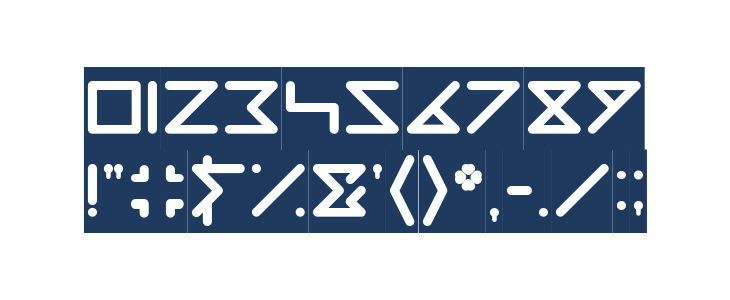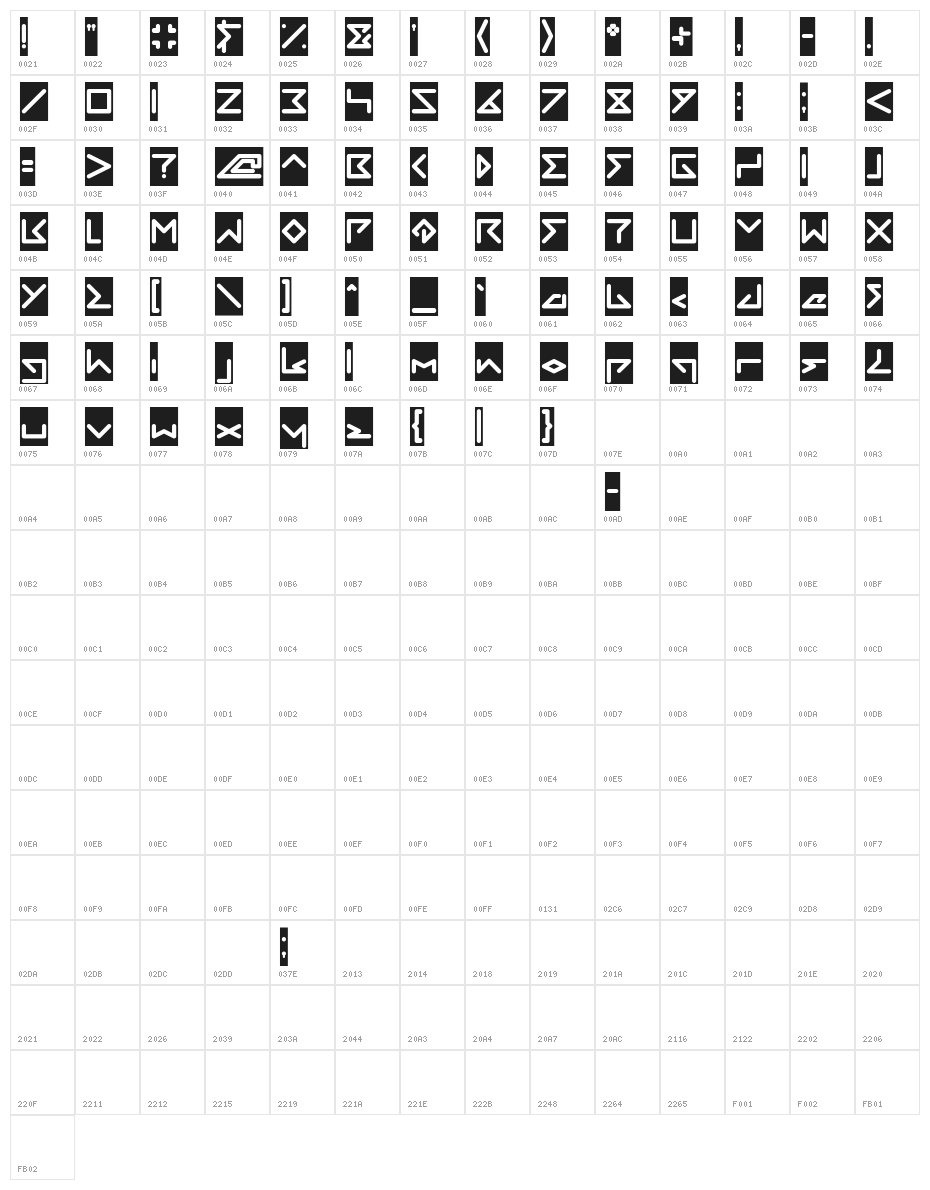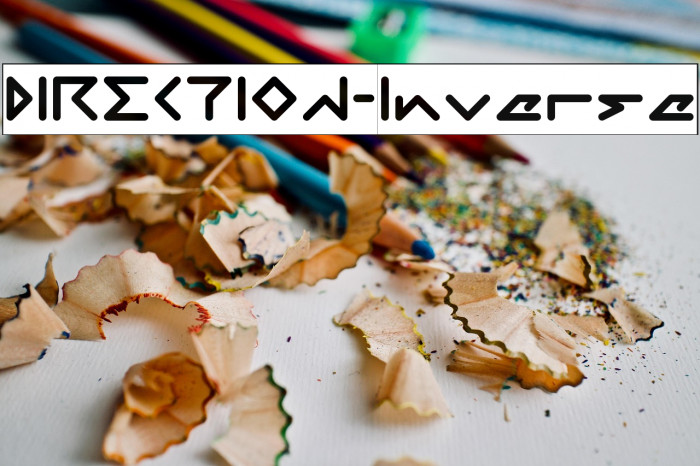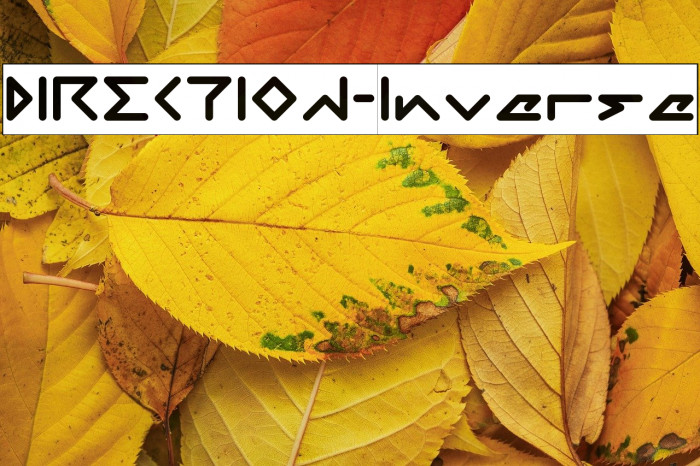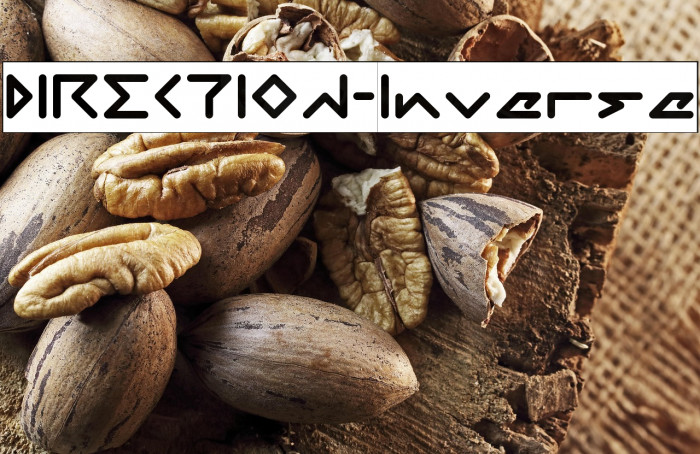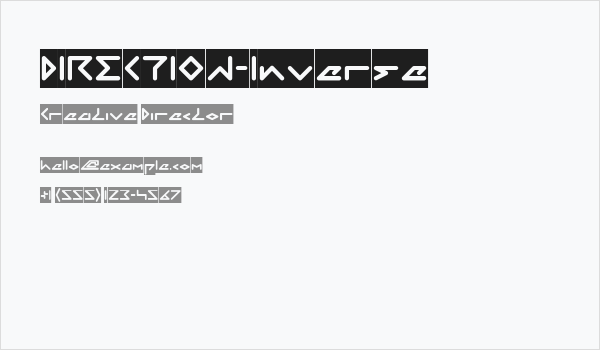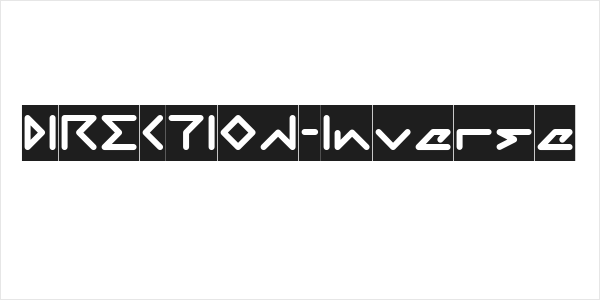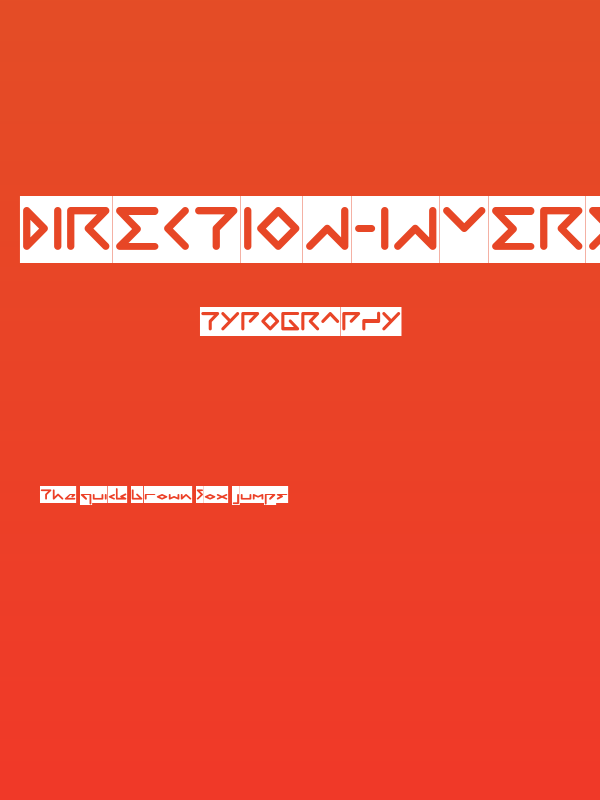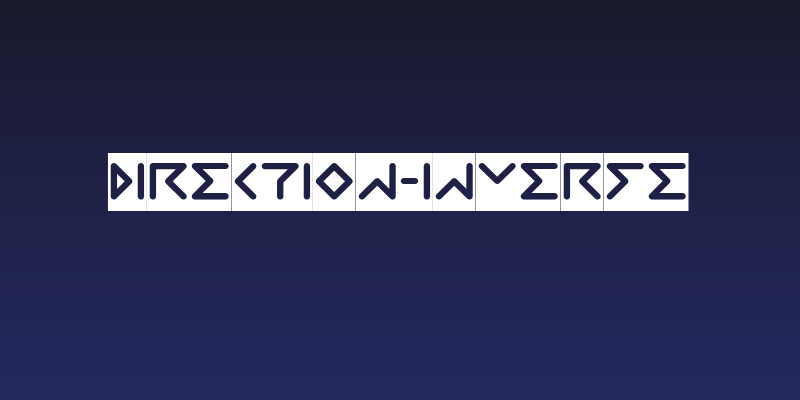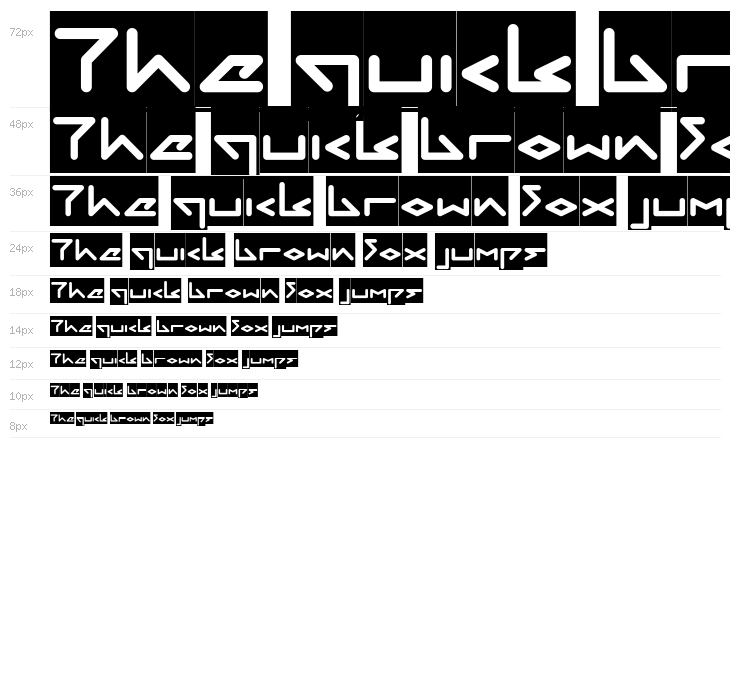
DIRECTION-Inverse Font
DIRECTION-Inverse Description
This font features a futuristic and geometric design with angular shapes and sharp edges. The characters are constructed with a consistent line thickness, giving it a uniform appearance. The uppercase and lowercase letters share similar design elements, creating a cohesive look. Numbers and special characters follow the same stylistic approach, maintaining the font's unique identity. The overall aesthetic is modern and somewhat abstract, making it stand out in digital and creative projects.
DIRECTION-INVERSE UPPERCASE
DIRECTION-INVERSE LOWERCASE
DIRECTION-INVERSE OTHER CHARS
| Use Case | Headlines, Logos, Digital Art |
| Proposed Projects | Ideal for sci-fi themed designs, video game interfaces, modern branding, and digital artwork. |